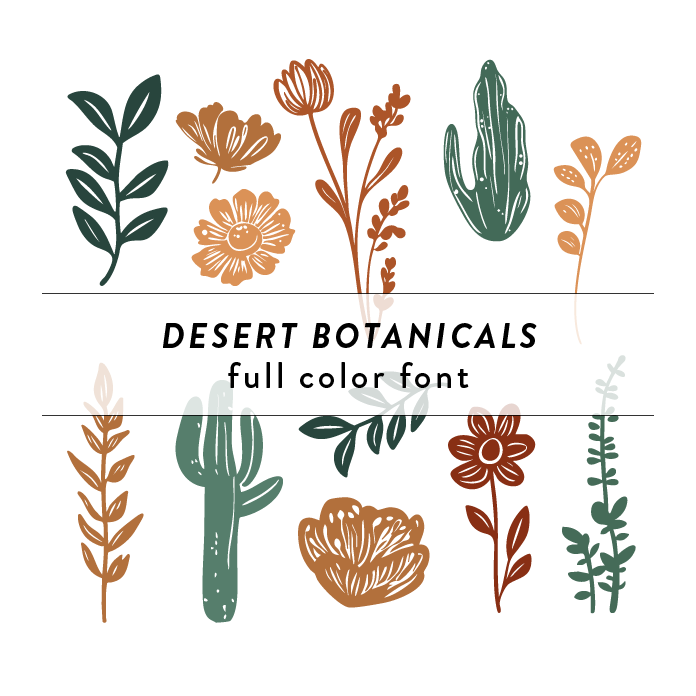
Desert Botanicals Full Color Font is a unique craft font inspired by the vibrant colors of desert flowers. It features intricate floral patterns and a summery aesthetic, perfect for adding a touch of nature to your designs. This font is ideal for creating eye-catching invitations, posters, and branding materials with a playful and colorful twist. This font is a OTF craft font that will appear in color only when used with the silhouette software.